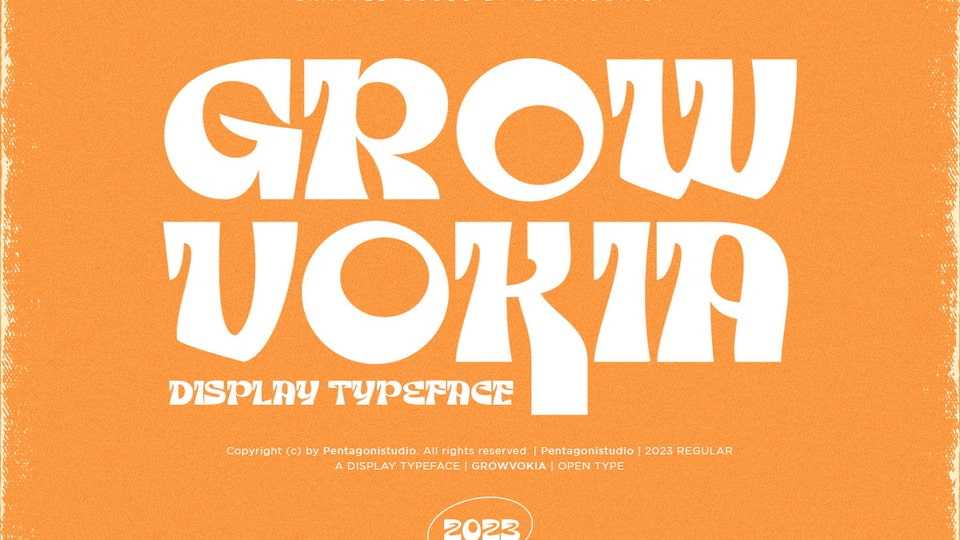
Download Growvokia font, a unique and eye-catching display typeface to make a bold statement. With its intentionally unbalanced design Growvokia adds a touch of individuality to your designs.
Designer: Pentagonistudio